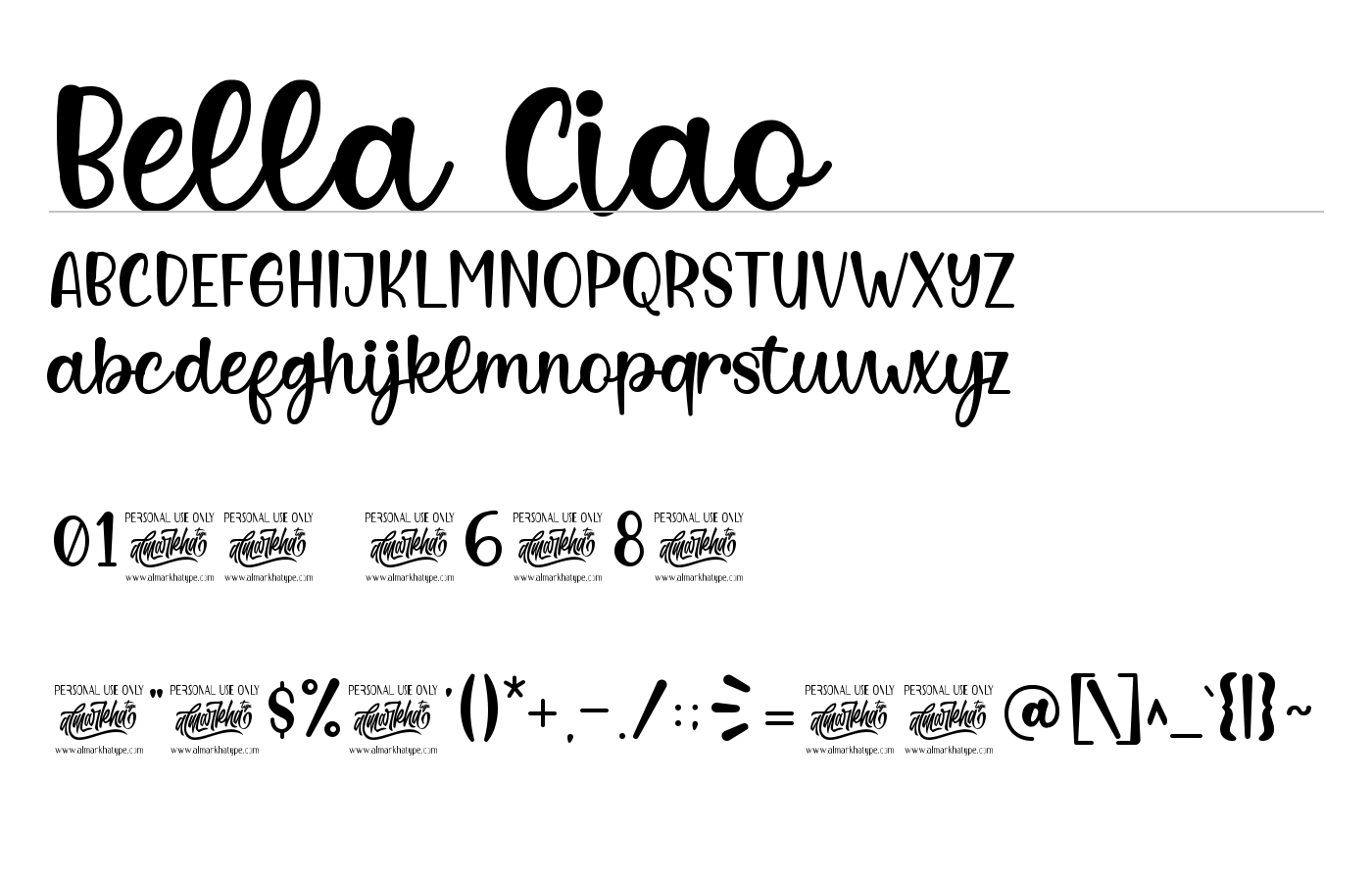
Bella Ciao is a playful and inviting handwritten script font with a casual, friendly vibe. Its smooth, rounded strokes and moderate contrast give it an approachable feel, ideal for creative and informal designs like greeting cards, branding for lifestyle products, or cheerful headlines. This font works best where a personal, warm touch is needed to connect with audiences in a relaxed and stylish way.
Bella Ciao Font
About Bella Ciao Font
| Font family | Bella Ciao Font |
| Designer | Almarkhatype 2020 - Abdul Malik - ghazi |